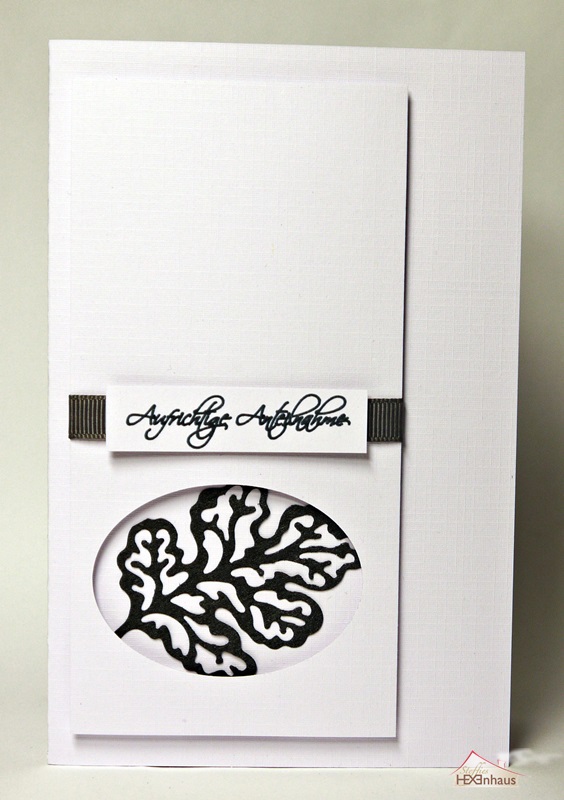
Schriftart Scriptina
Download Scriptina Font Family · Free for commercial use · Includes Scriptina Regular, Alternatesregular ·. We have 513 free handlettering fonts to offer for direct downloading · 1001 Fonts is your favorite site for free fonts since 01. Scriptina Prootf Anmerkung des Autors This is the 100th font released by CheapProFonts, and I wanted to make something special so I have chosen to upgrade one of the most popular free fonts ever the one and only Scriptina by the infamous Fredrick "Apostrophe" Nader!.
Scriptina Prootf Note of the author This is the 100th font released by CheapProFonts, and I wanted to make something special so I have chosen to upgrade one of the most popular free fonts ever the one and only Scriptina by the infamous Fredrick "Apostrophe" Nader!. Stunning Script Fonts Browse more than 14,000 script fonts for invitations, cards, posters, and albums In styles ranging from casual and warm to formal and elegant, these script font sets are inspired by vintage, classic, and modern letterforms. The fonts presented on this website are their authors' property, and are either freeware, shareware, demo versions or public domain The licence mentioned above the download button is just an indication.